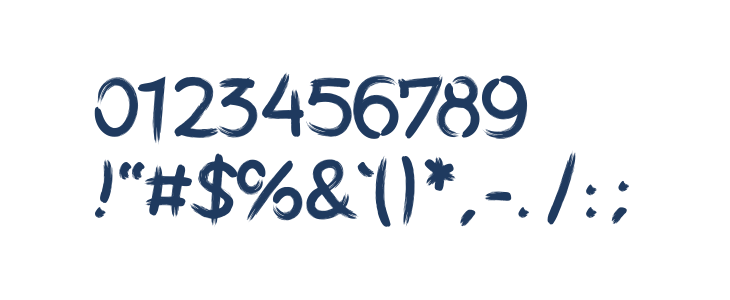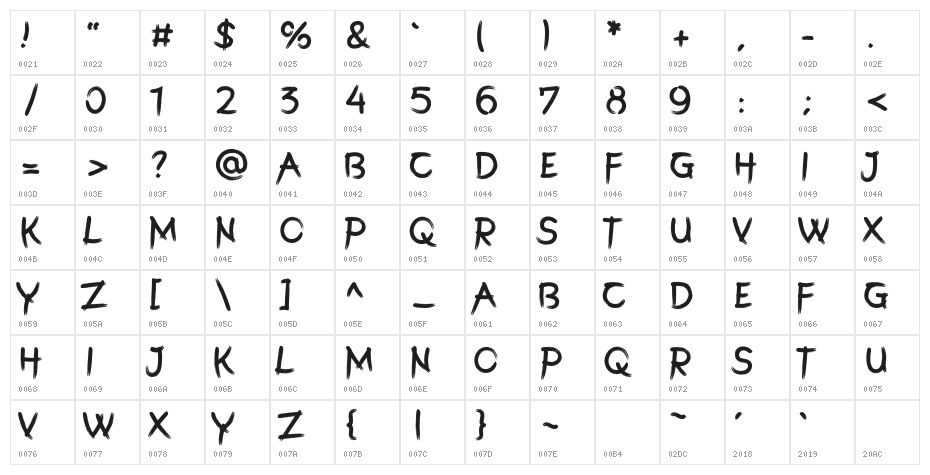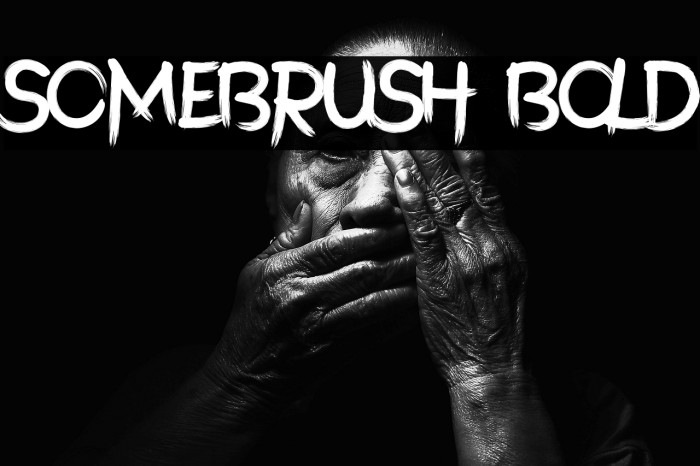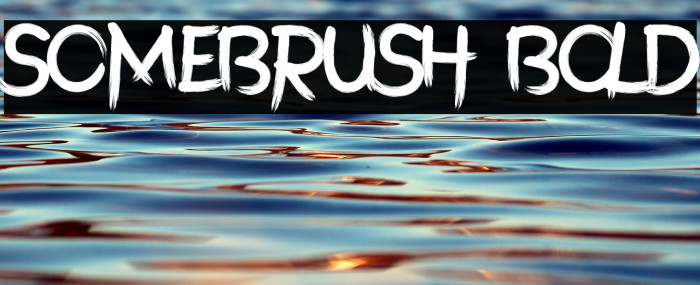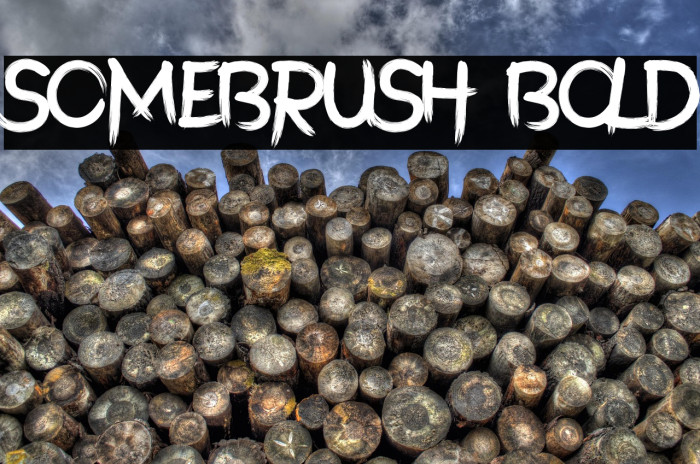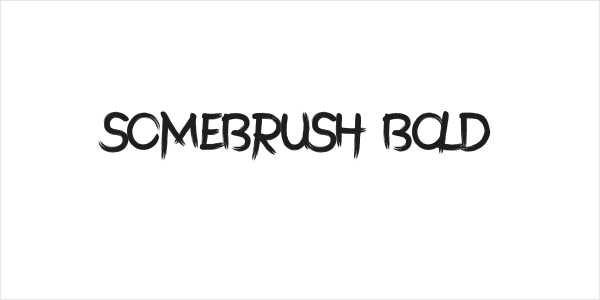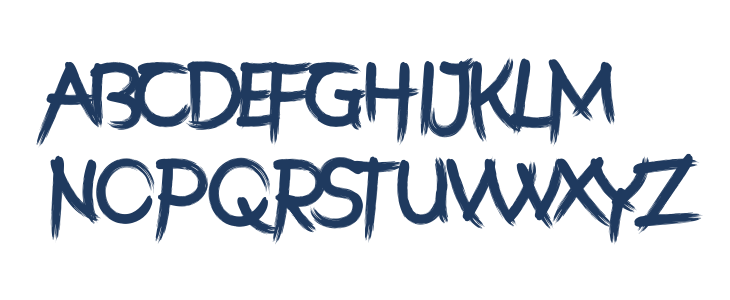
SomeBrush Bold Font
SomeBrush Bold Description
This font exhibits a bold, brush-stroke style that conveys a sense of dynamic energy and artistic flair. The characters are crafted with a rough, textured appearance, reminiscent of hand-painted lettering. Each letter features varying stroke thickness, adding to the font's expressive and spontaneous feel. The uppercase and lowercase letters maintain a consistent style, with a slightly condensed form that enhances readability while preserving its artistic nature. The numbers and special characters follow the same brush-stroke aesthetic, ensuring a cohesive look across all glyphs.
| Proposed Projects | Ideal for creative projects such as posters, album covers, branding for artistic ventures, and any design requiring a bold, expressive touch. |